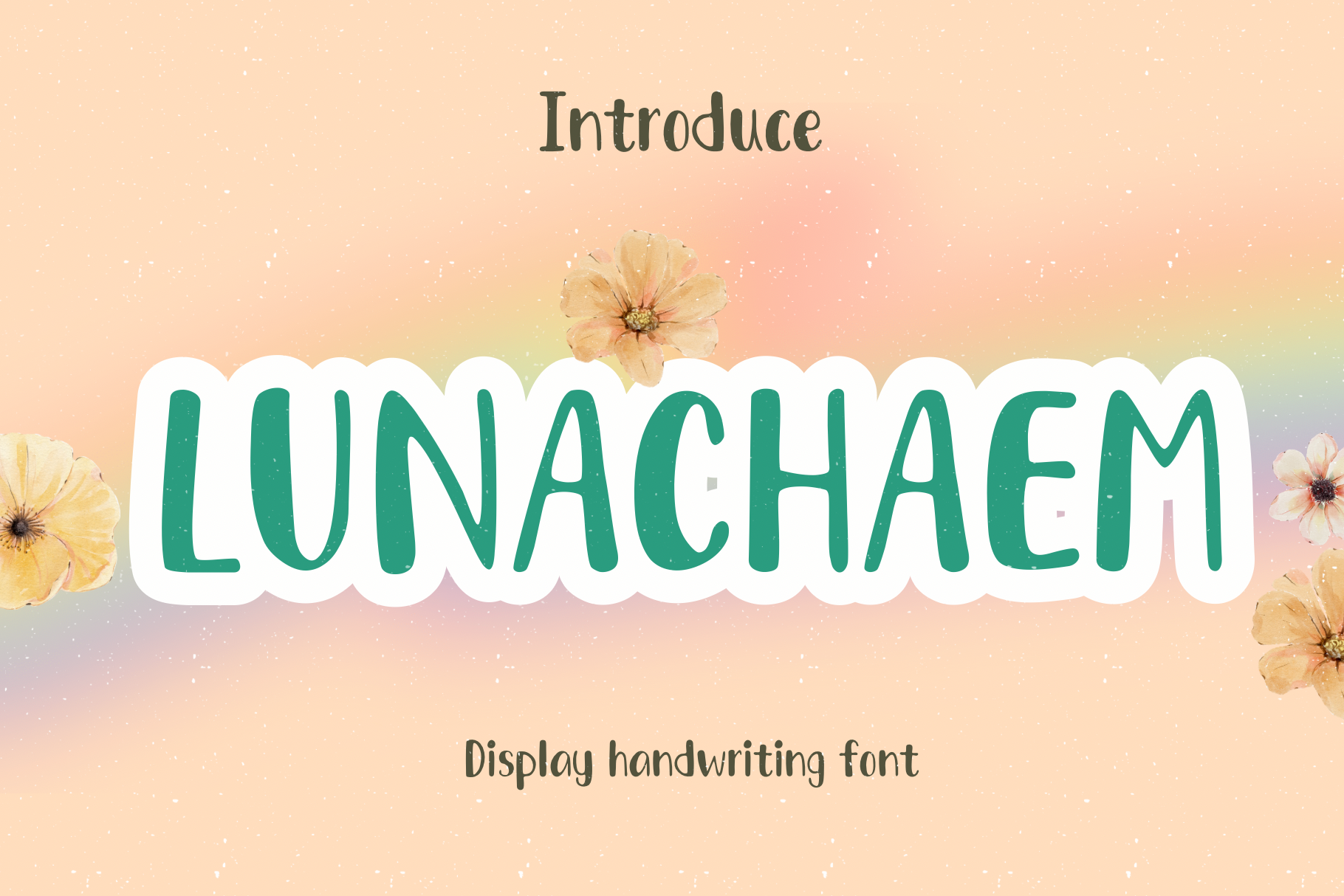
Lunacharm font
Lunacharm handwriting font An adorable decorative font that hides sweetness and charm, making your design work captivating and charming. The curved edges of the letters add an extra touch of loveliness.